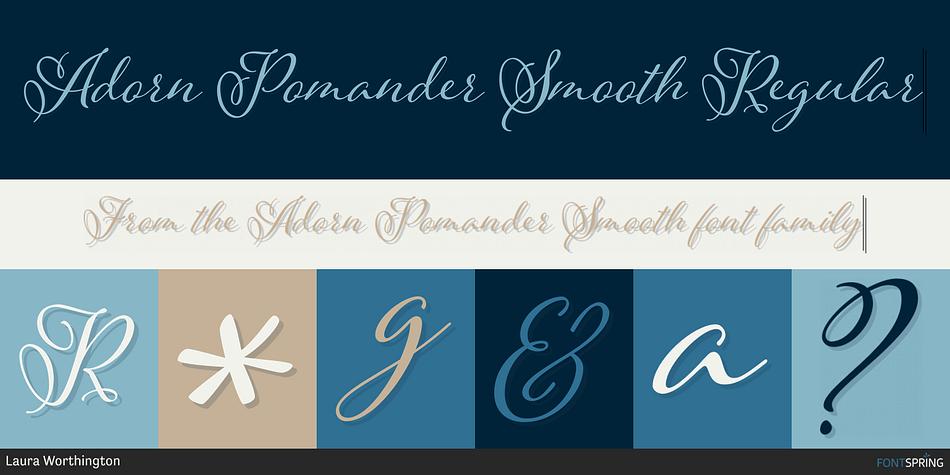
Adorn Pomander Smooth Regular
Designed by Laura Worthington, Adorn Pomander Smooth is a modern calligraphy and script font family. This typeface has two styles and was published by Laura Worthington.
Like the original  Adorn family on which it
Like the original Adorn family on which it’s based, Adorn Smooth provides a suite of distinctive typeface designs designed to complement each other rather than match exactly. Adorn Smooth revisits 6 faces from Adorn — Pomander, Serif, Slab Serif, Engraved, Condensed, and script Catchwords; plus ornaments, banners, and frames — in smooth, un-textured versions.
As with Adorn, Adorn Smooth provides a disparate but harmonious typographic toolkit for creating wedding invitations, event posters, book jackets, or packaging.